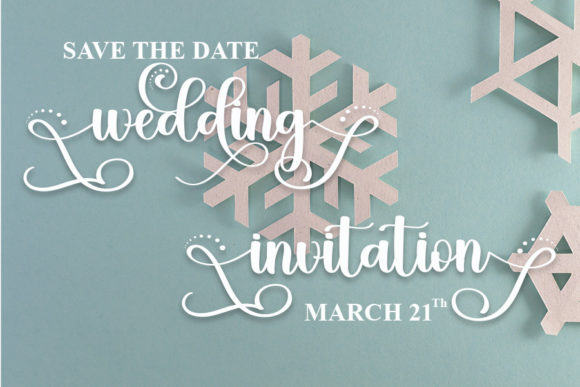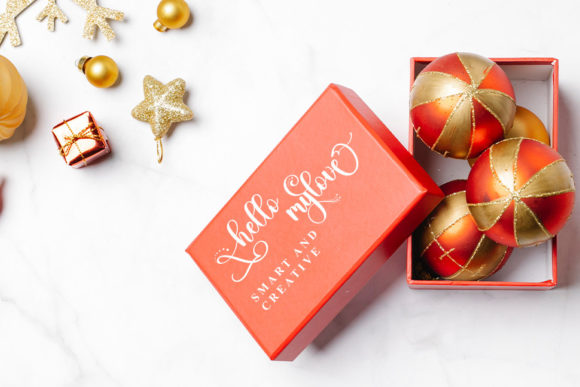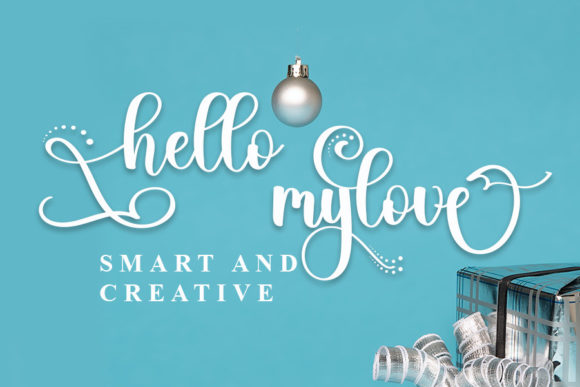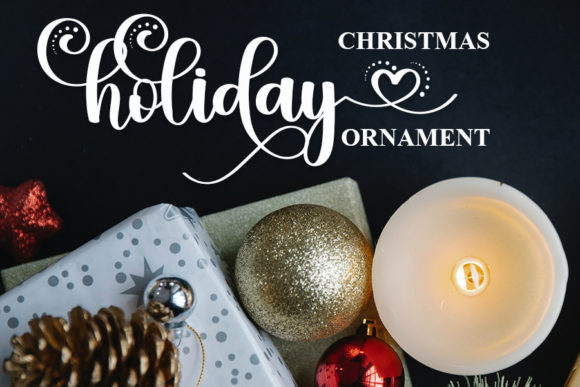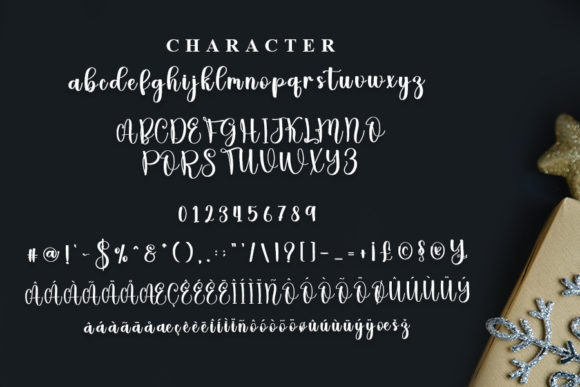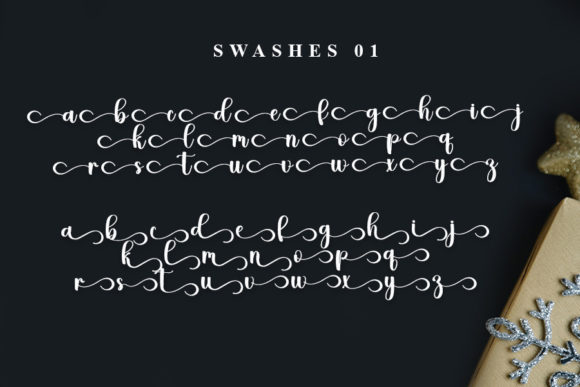
Introducing Amellda Font: Elevate Your Designs with Luxurious Flair
In the world of typography, fonts play a pivotal role in transforming a design from ordinary to extraordinary. For designers, crafters, and anyone looking to add a touch of elegance to their projects, the Amellda Font is a game-changer. This enchanting script font is not just a typeface; it’s an experience that brings luxury and sophistication to the forefront of any design.
The Allure of Amellda Font
Amellda Font stands out with its unique blend of classic elegance and modern charm. Its script style is meticulously crafted to add a luxurious spark to any design project. Whether you’re working on a branding project, a wedding invitation, a packaging design, or a digital platform, Amellda provides the perfect aesthetic to make your work shine.
PUA Encoding: Easy Access to Glyphs and Ligatures
One of the key features that make Amellda Font exceptionally user-friendly is its PUA (Private Use Area) encoding. This technical aspect allows designers to access all the amazing glyphs and ligatures easily, without the complexity of navigating through character maps or employing workarounds. With PUA encoding, you can instantly bring out the best in your typography, making it not just visually appealing but also highly functional.
Versatility in Design Projects
The versatility of Amellda Font is one of its most compelling attributes. It’s designed to work seamlessly across a wide range of projects. For digital designers working on websites or mobile apps, Amellda can add a personal touch that elevates the user experience. For crafters and stationery designers, this font can transform a simple invitation or a label into a statement piece. The possibilities are endless, and Amellda’s adaptability makes it an invaluable asset in any designer’s toolkit.
Why Choose Amellda Font?
- Luxurious Aesthetic: Adds an unparalleled level of sophistication and elegance to any design.
- PUA Encoded: Offers easy access to a wide range of glyphs and ligatures, making design work more efficient.
- Versatile: Suitable for a variety of design projects, from digital platforms to print materials.
- User-Friendly: Designed with the user in mind, ensuring a smooth and enjoyable design experience.
Tips for Maximizing Amellda Font’s Potential
To truly leverage the beauty of Amellda Font, consider the following design tips:
- Pair it Wisely: Combine Amellda with complementary fonts to create visual interest and hierarchy in your design.
- Experiment with Sizes: Play with different font sizes to emphasize certain parts of your text and add dynamism to your layout.
- Utilize Ligatures: Take full advantage of Amellda’s ligatures to add a unique touch to your typography.
- Color Matters: Choose colors that complement the luxurious feel of Amellda. Metallic or pastel shades can enhance its elegance.
Amellda Font is more than just a typeface; it’s a design statement. With its luxurious appeal, technical convenience through PUA encoding, and versatility across projects, it has the potential to elevate any design from mundane to magnificent. Whether you’re a professional designer, a crafter, or simply someone with a passion for typography, Amellda Font invites you to explore new dimensions of creativity and bring a touch of luxury to your work.